The project originally consisted of branding – From idea to design of every visual element. I worked with the client to define the core values and wording used throughout the materials. Since 2018 I have collaborated with Icetek on various projects, most recently working part-time for almost two years on expanding marketing materials, redesigning the website, designing application UI and improving brand communication.
The key visual element is a Variable “ICE” mark. It is used throughout all the materials. „ICE“ was designed as a variable font in glyphs and has been animated using CSS for website purposes.
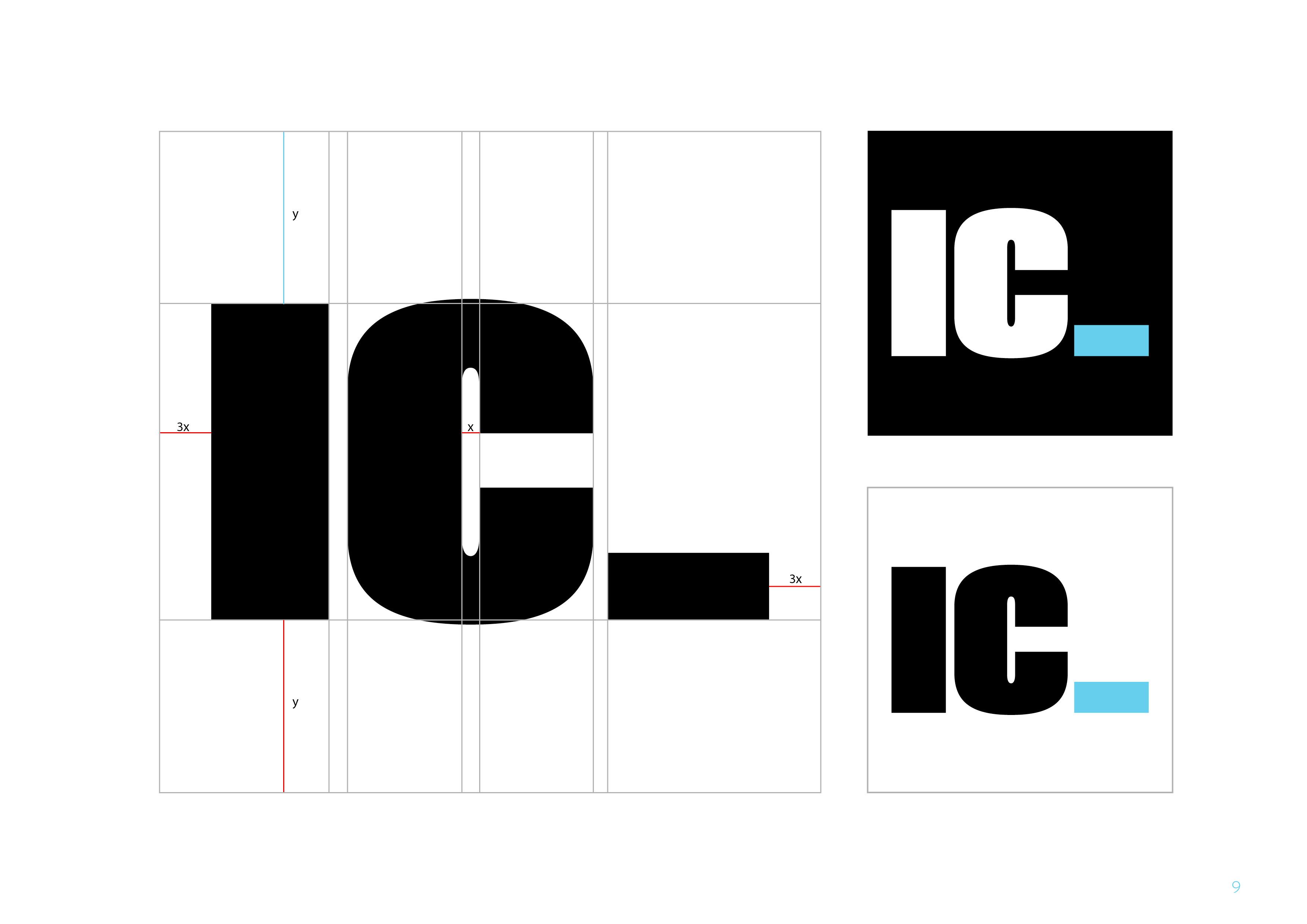
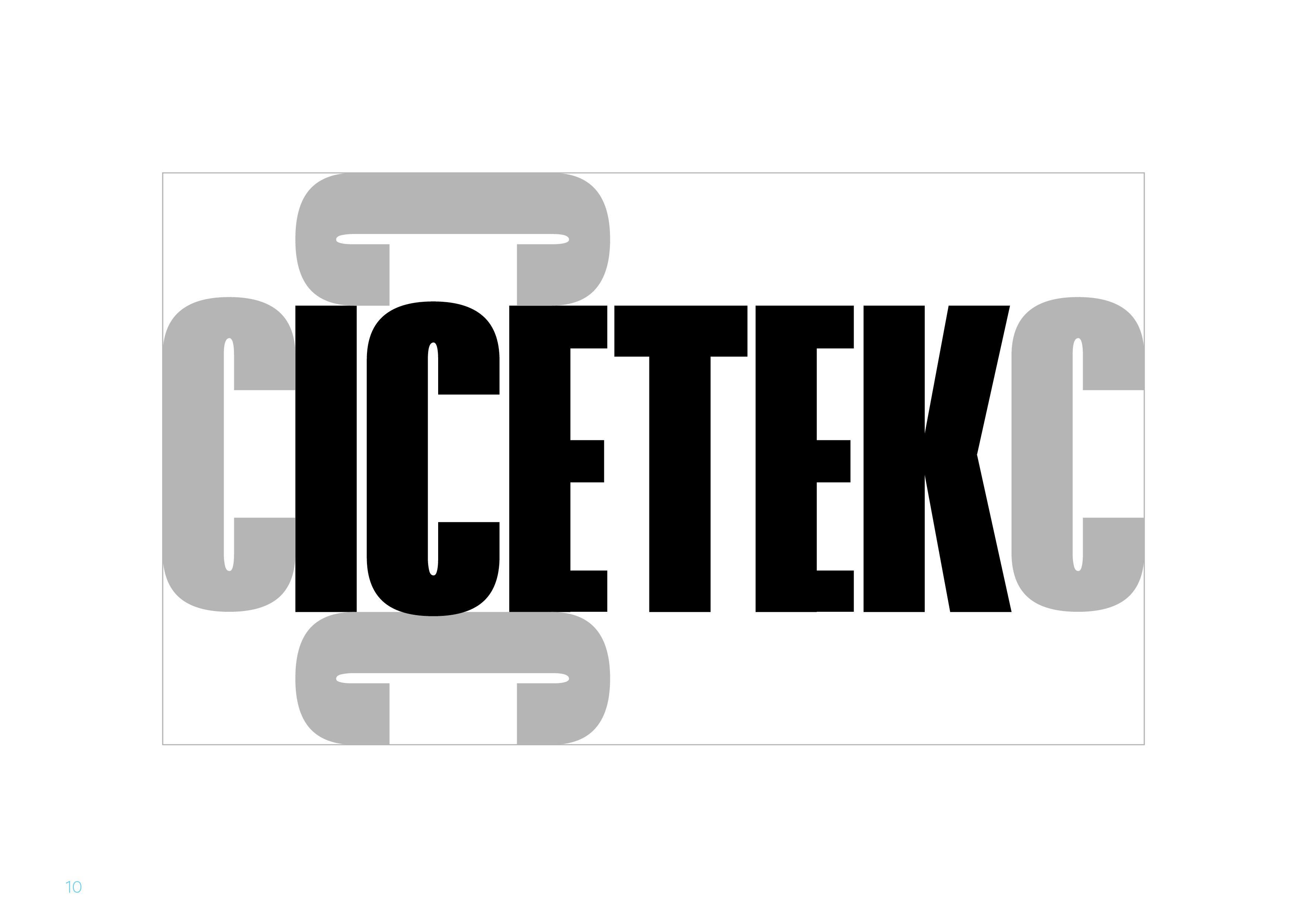
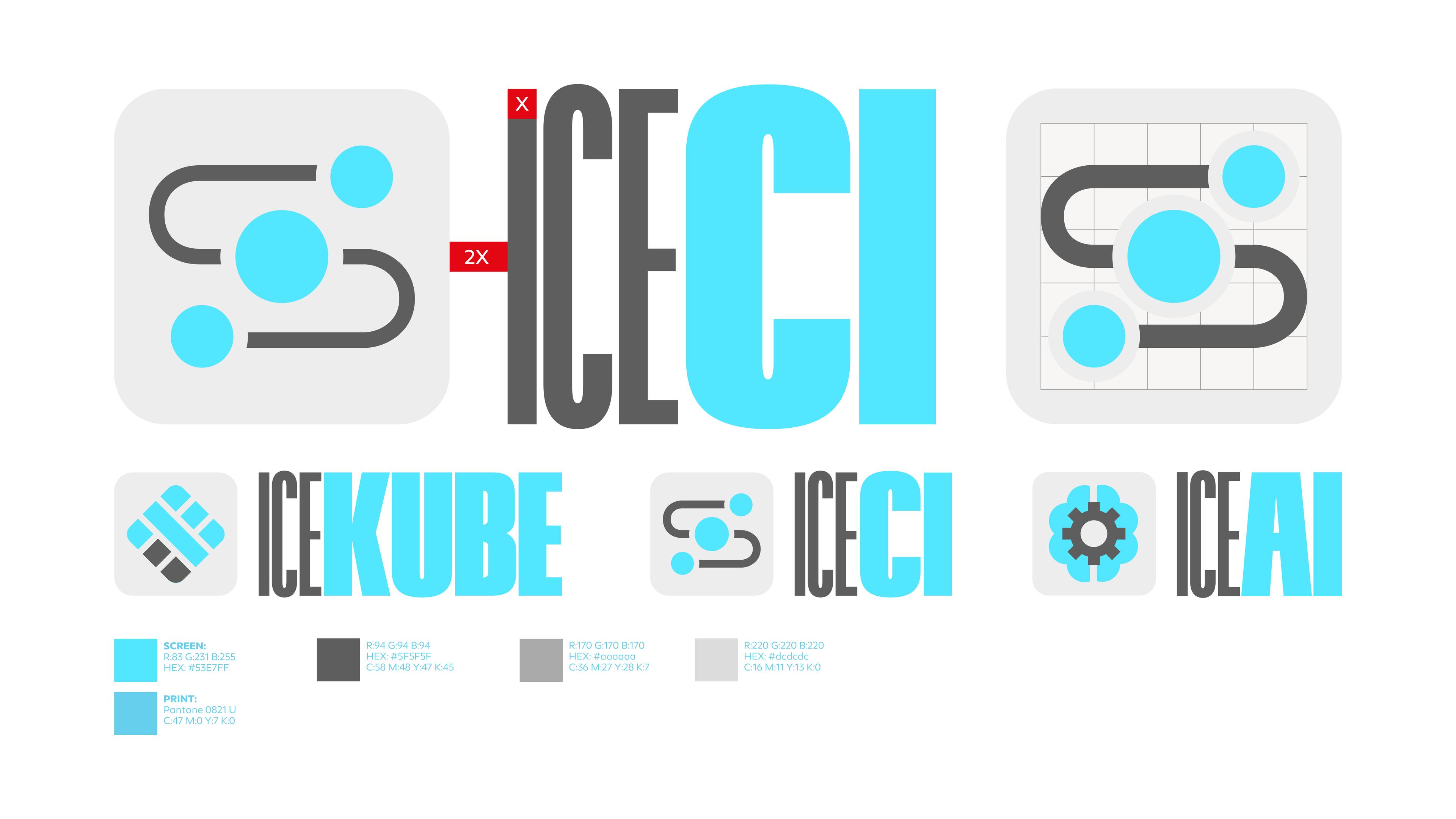
Sub-brands were designed with future products in mind. The font used is a custom project designed in Glyphs with the possibility of variable animation.